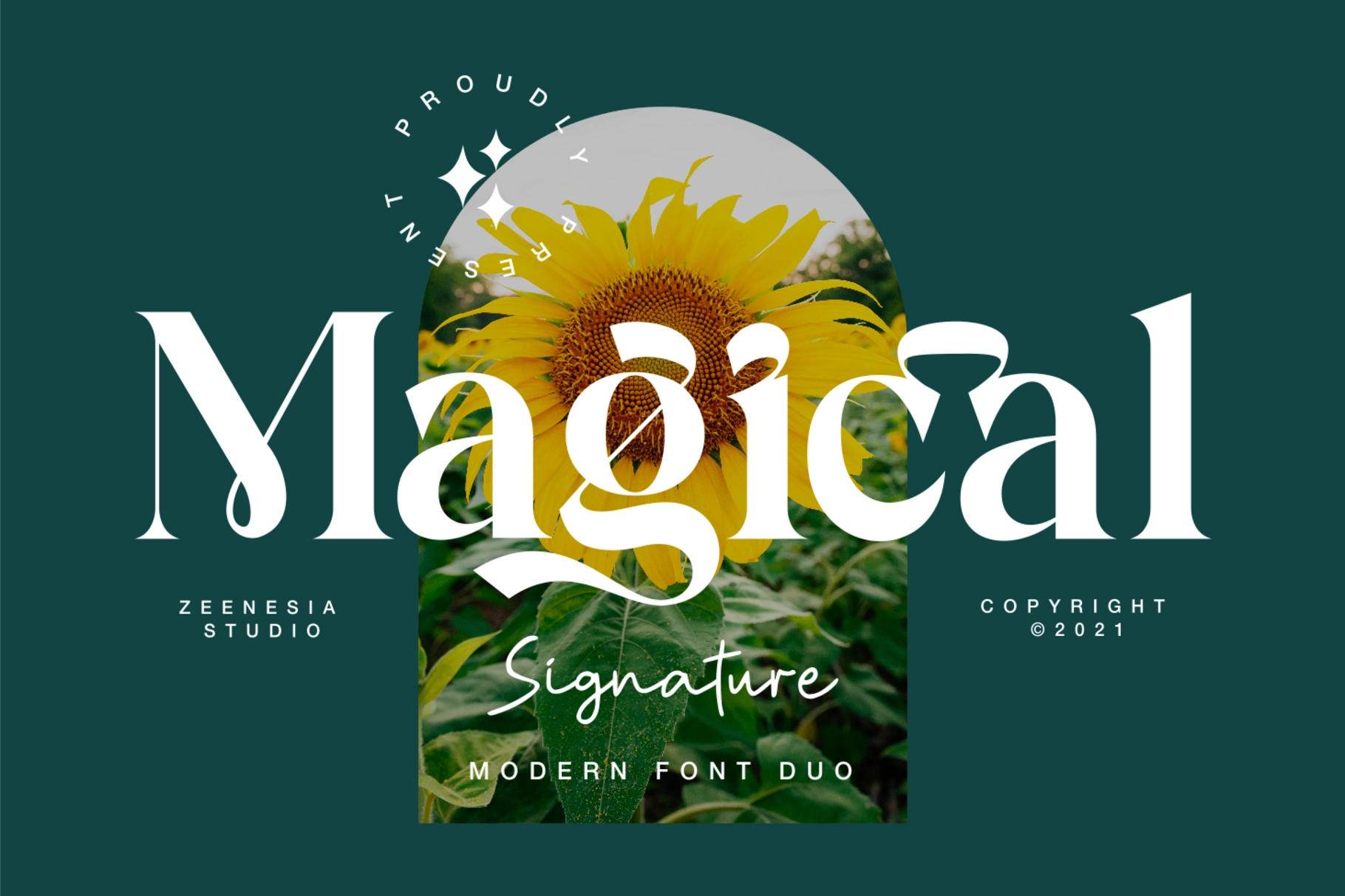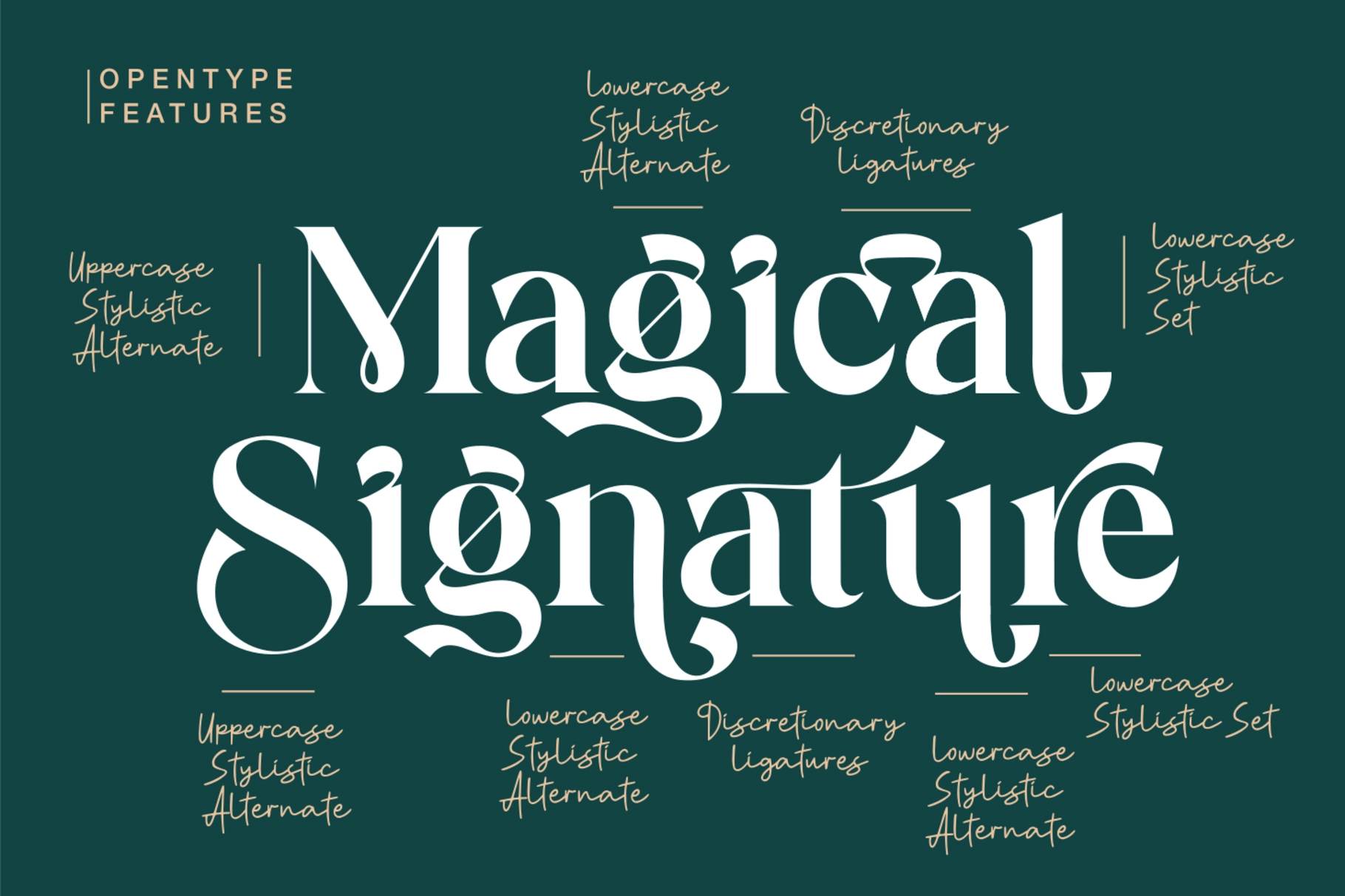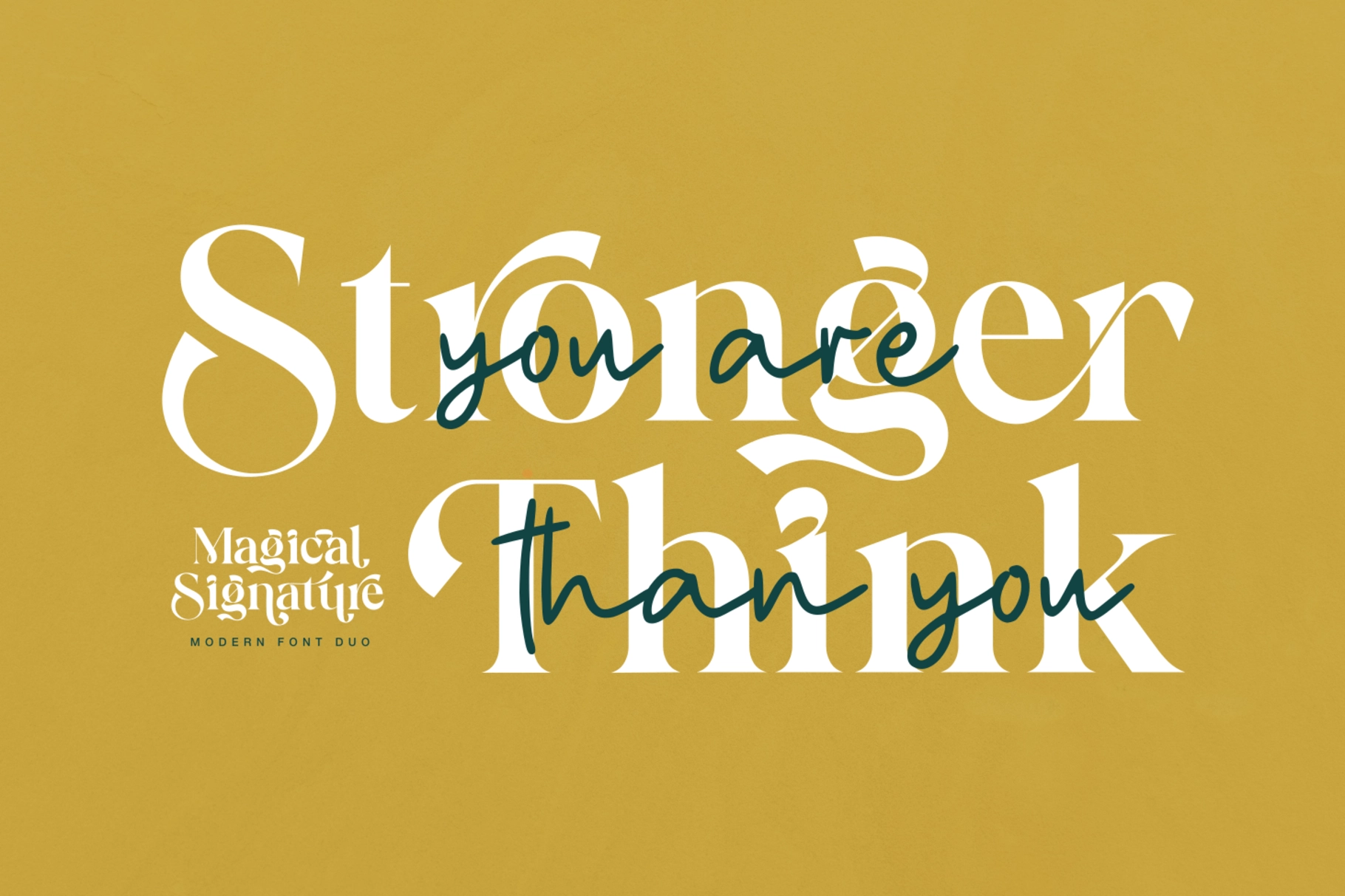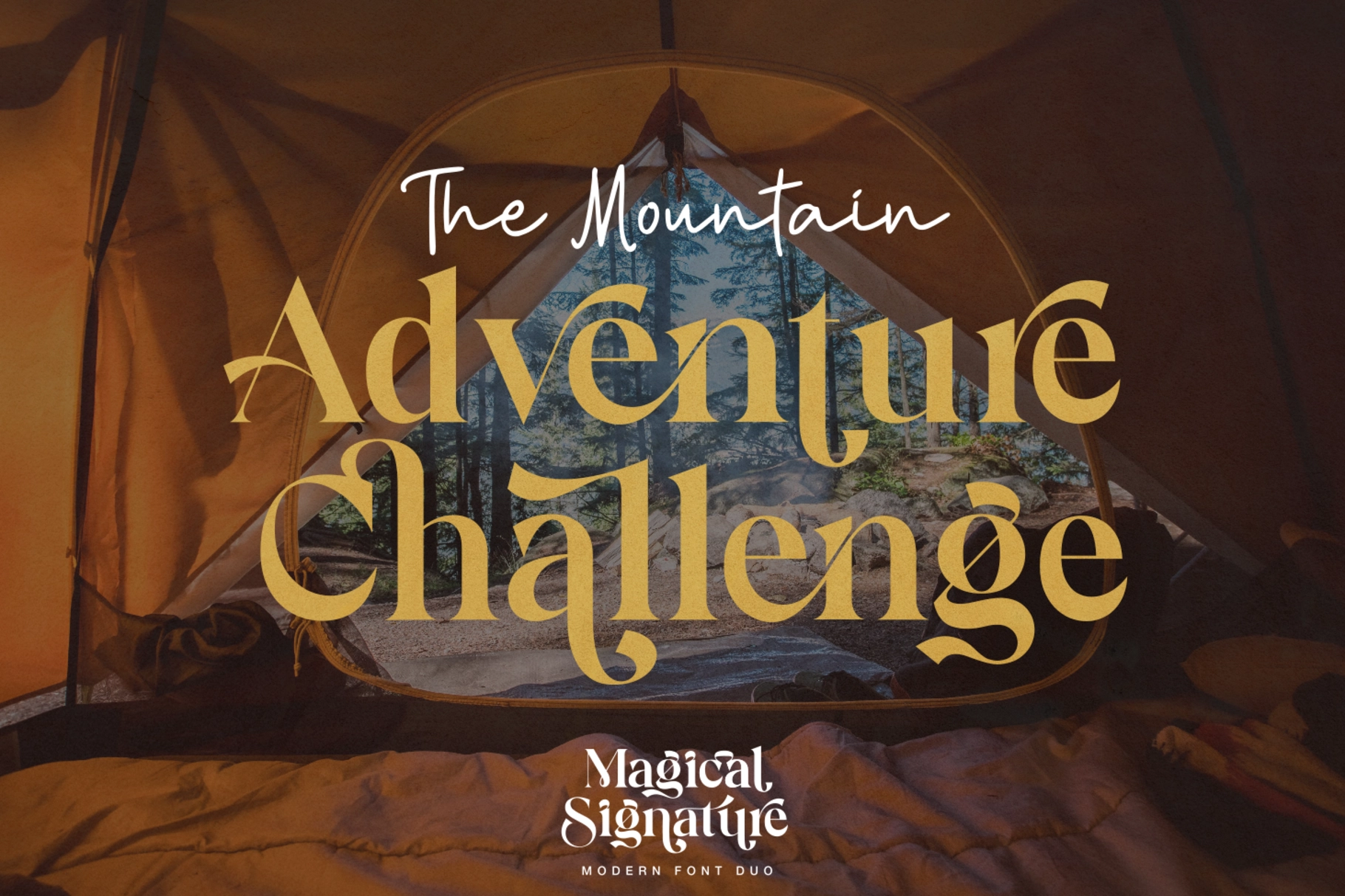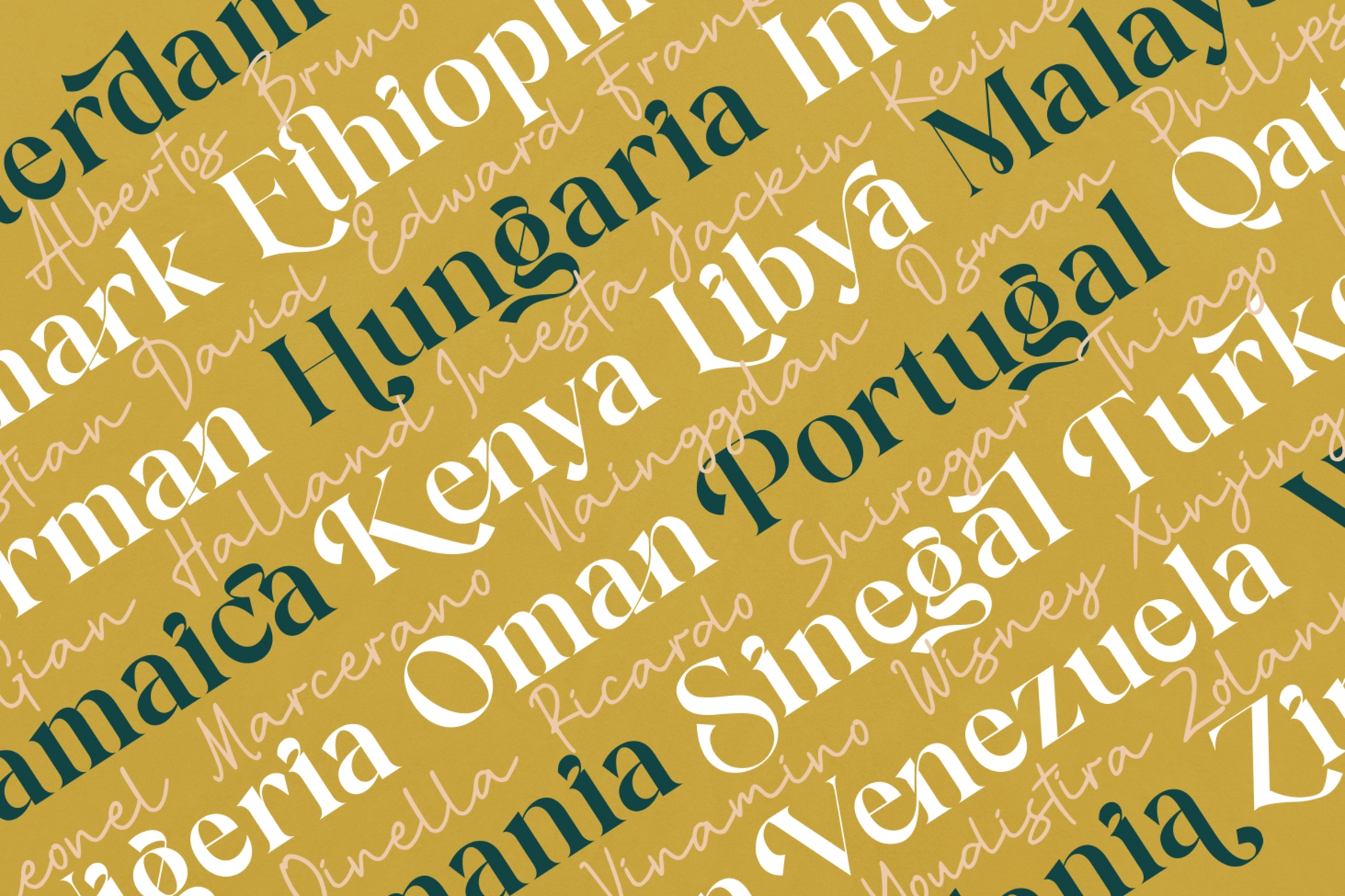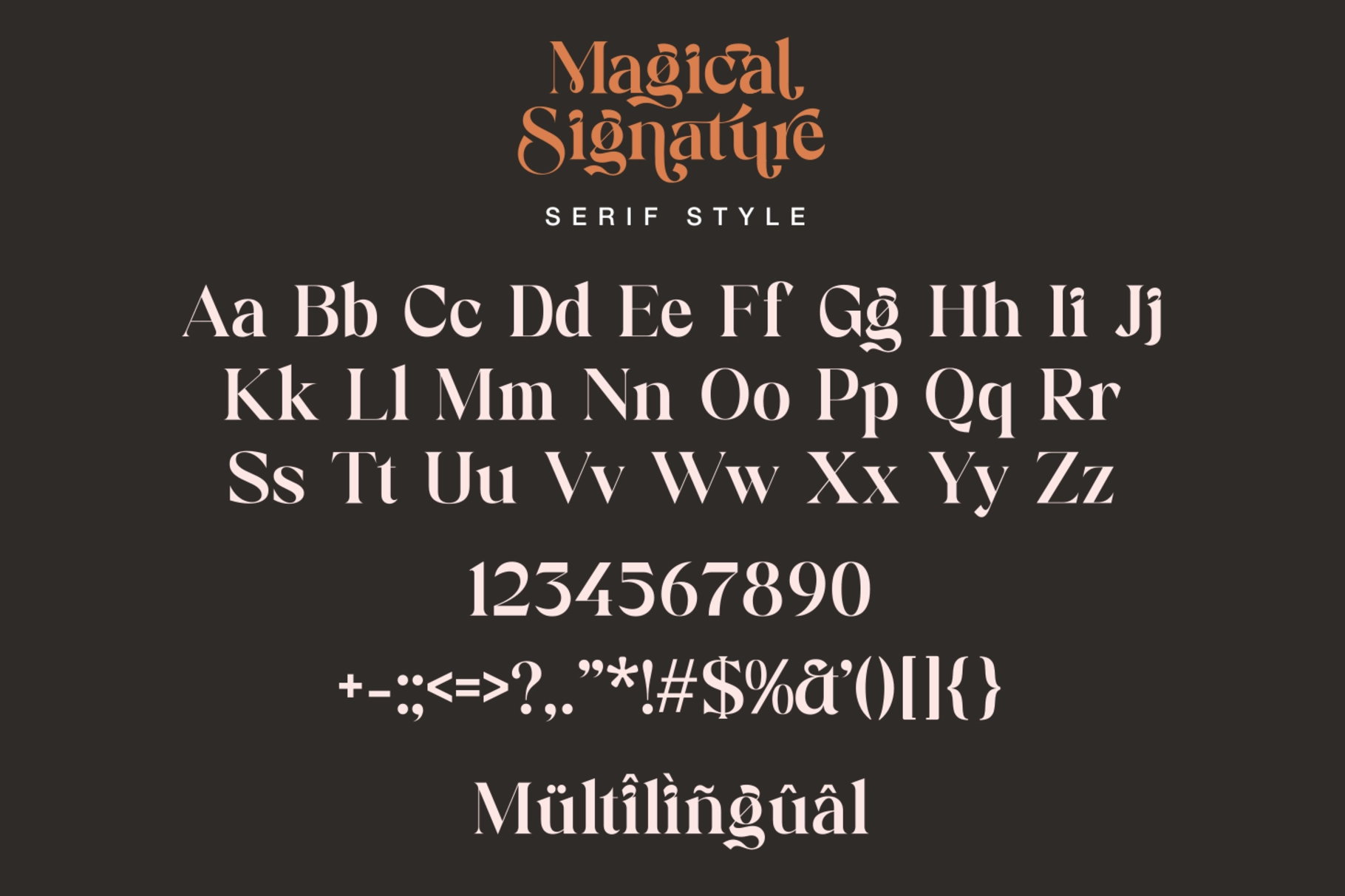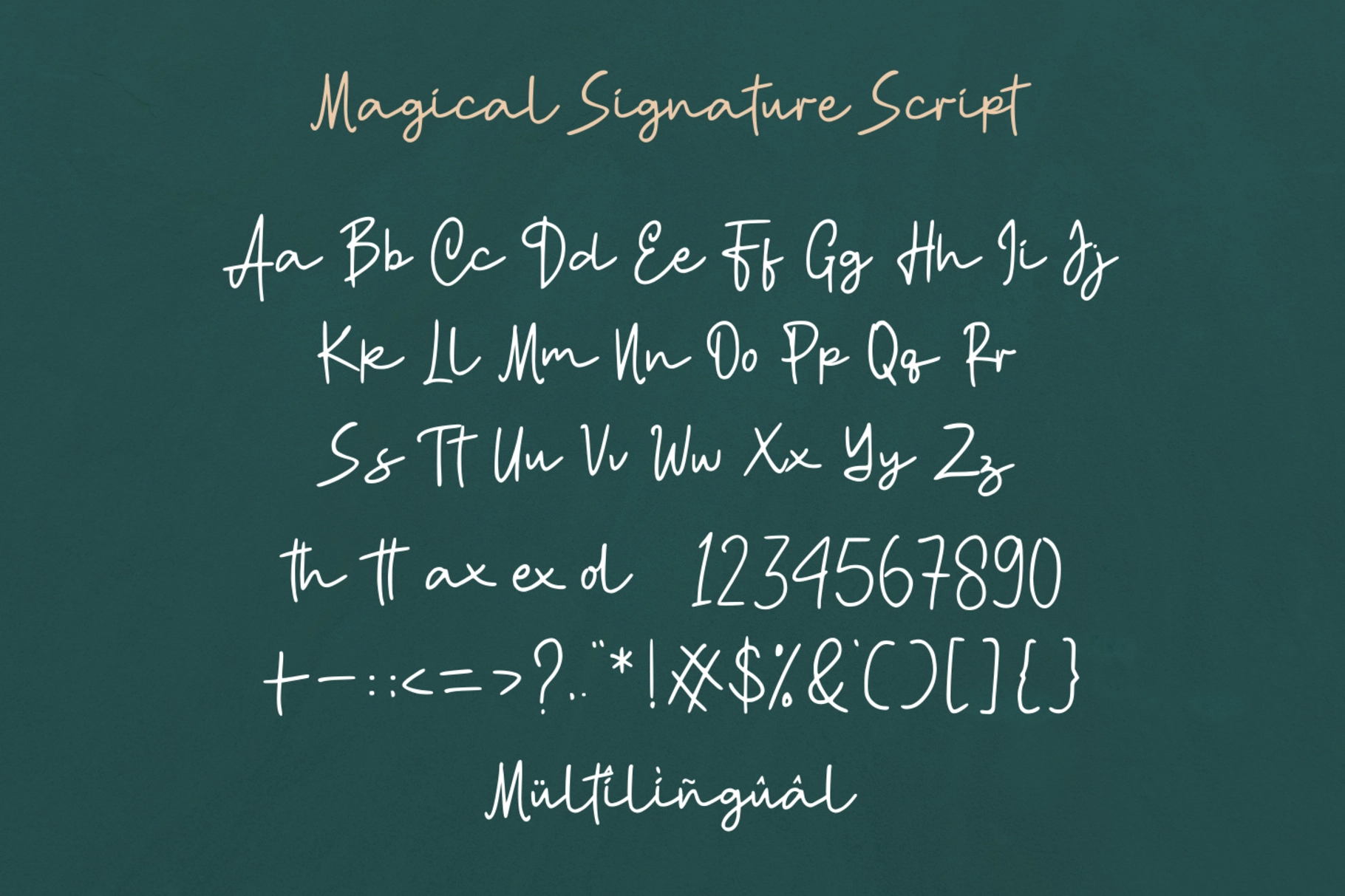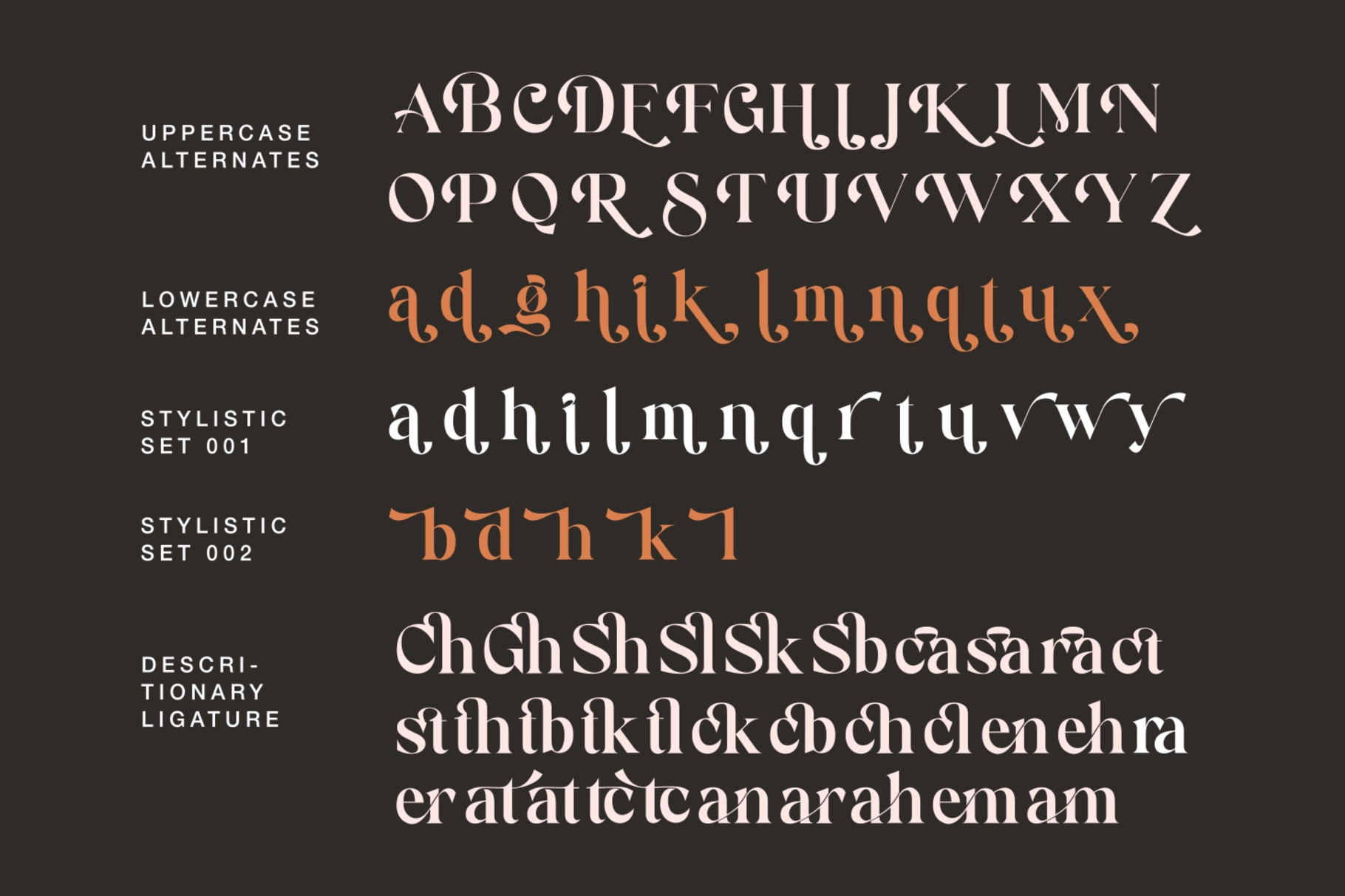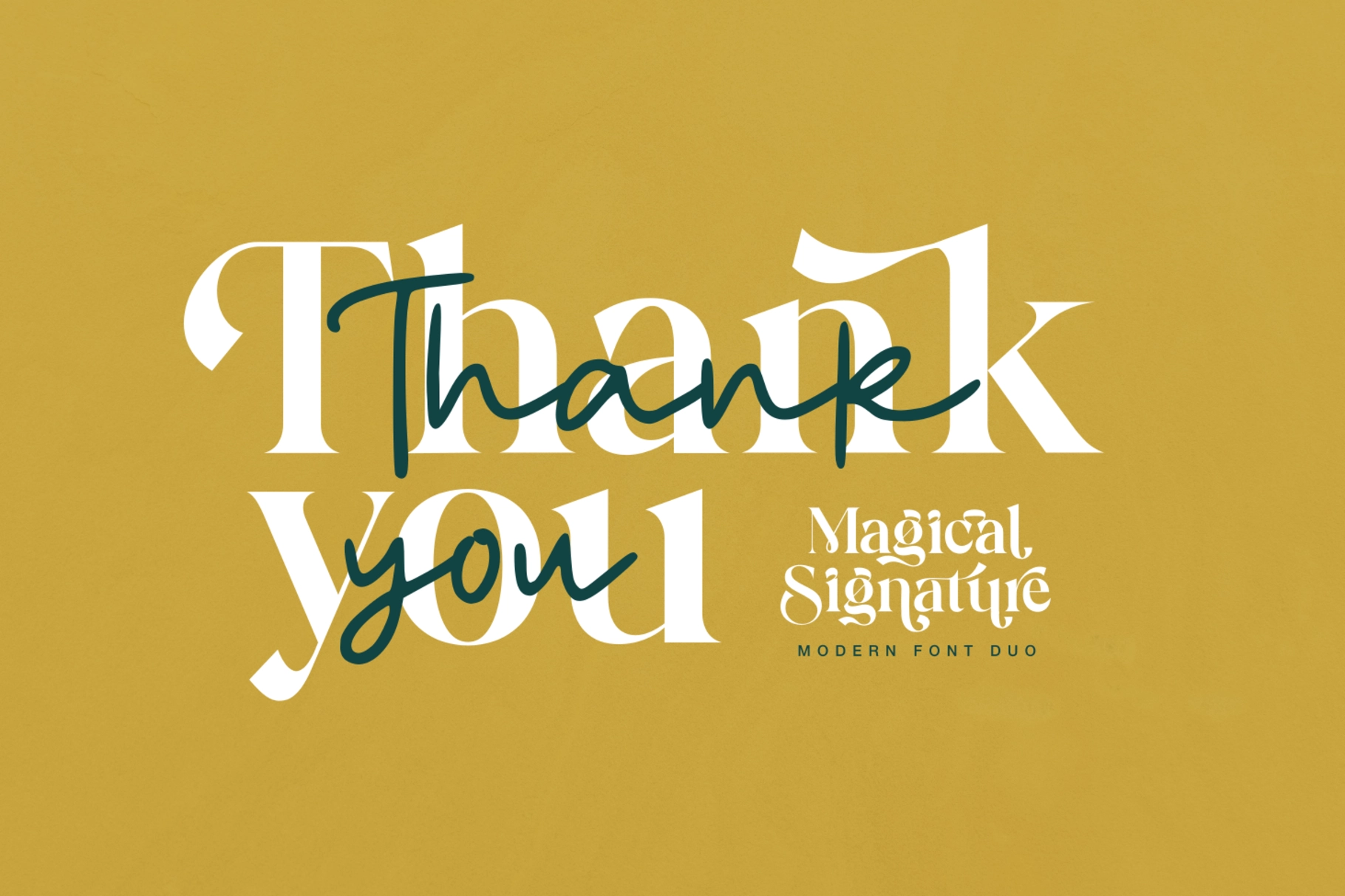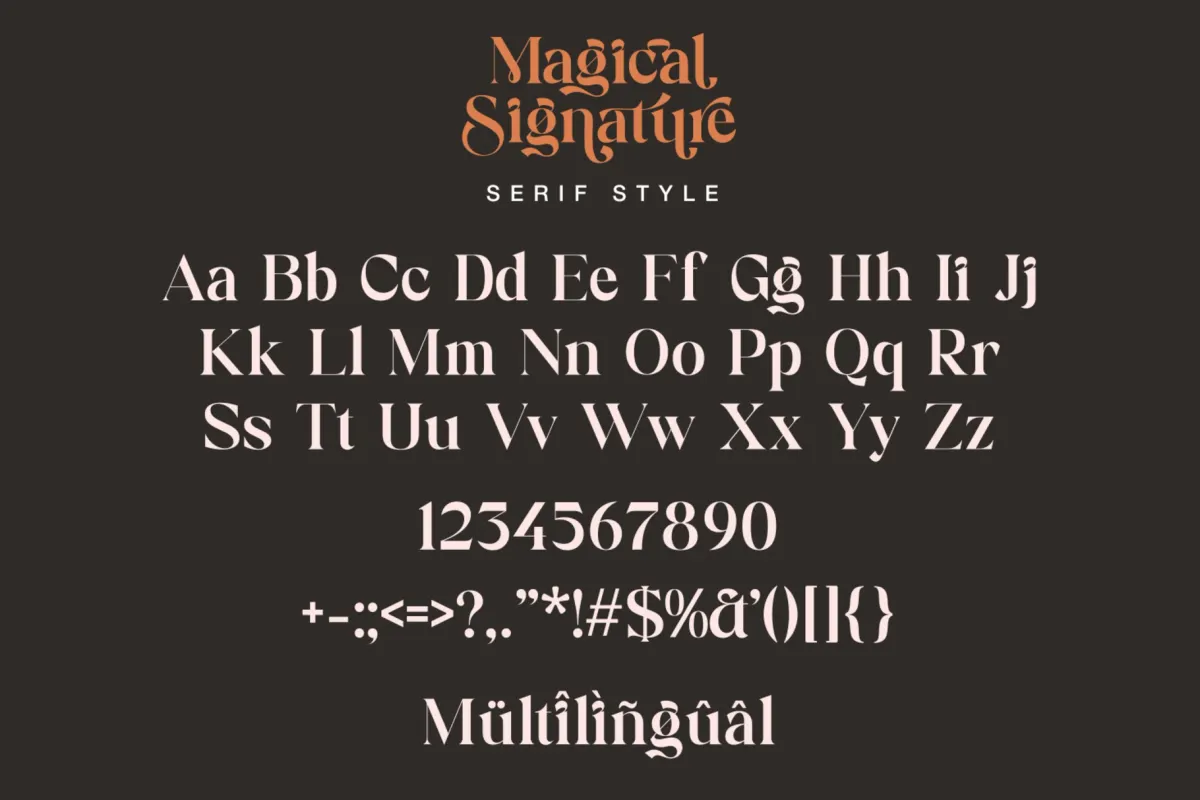
Magical Signature - Modern Luxury Font Duo
This script and serif duo pairs expressive handwritten strokes with a high-contrast display serif, giving the set an elegant, polished voice. The serif has dramatic alternates, sweeping curves, and decorative ligatures, while the handwritten style adds a loose signature note for contrast.
Magical Signature works well for luxury branding, wedding stationery, boutique packaging, beauty logos, fashion campaigns, product labels, editorial titles, greeting cards, social media graphics, photography marks, event invitations, website headers, and more. The PUA encoding makes the extra glyphs and swashes easy to access, which is useful for custom-looking typography without wrestling your software at midnight.
• 2 fonts: Serif and Script
• Standard glyphs
• Discretionary ligatures
• Stylistic alternates